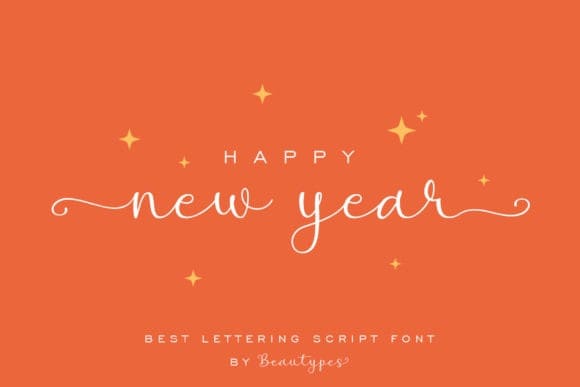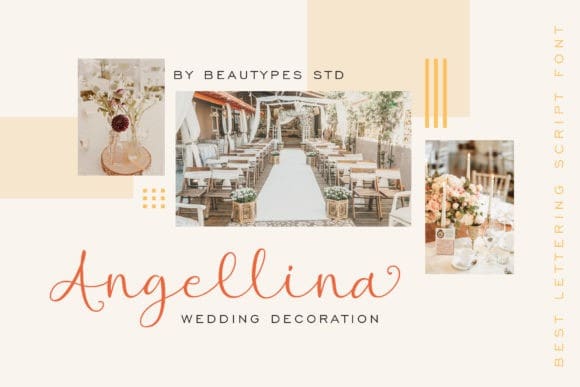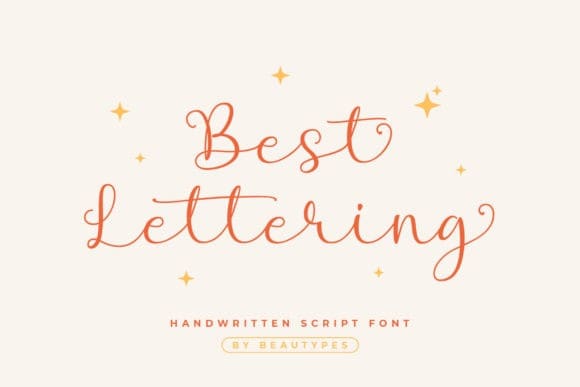
Best Lettering Font
Best Lettering Font is a light and fresh handwritten font that will inspire any design project with its incredibly romantic feel. This font is PUA encoded which means you can access all of the glyphs and swashes with ease!